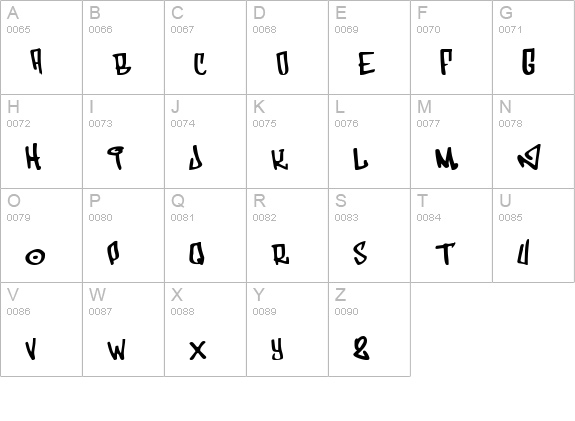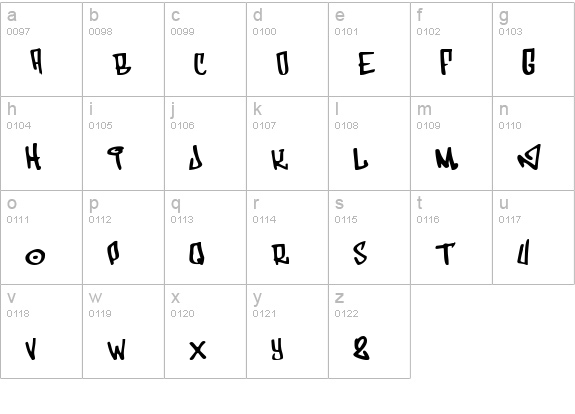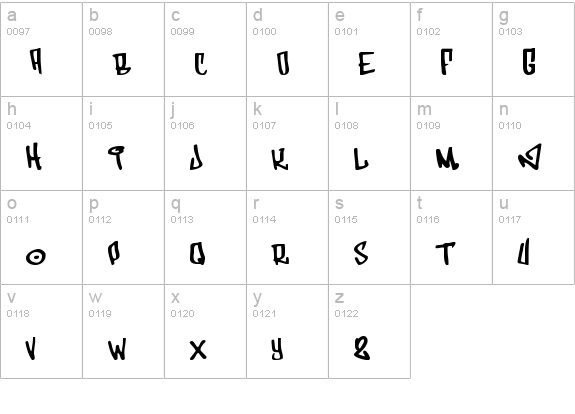
Funk Font Details
Funk font is a vibrant and energetic typeface that exudes fun and playfulness. With its bold and dynamic letterforms, this font is perfect for making a statement and adding a touch of retro flair to your designs. The unique and funky style of Funk font is sure to grab attention and make your projects stand out. Best of all, Funk font is completely free to download at FontsMarket.com. Whether you're working on a poster, flyer, logo, or any other creative project, Funk font is a great choice for adding a dose of personality and style. Don't miss out on this fantastic free font - download Funk font today and get ready to unleash your creativity!